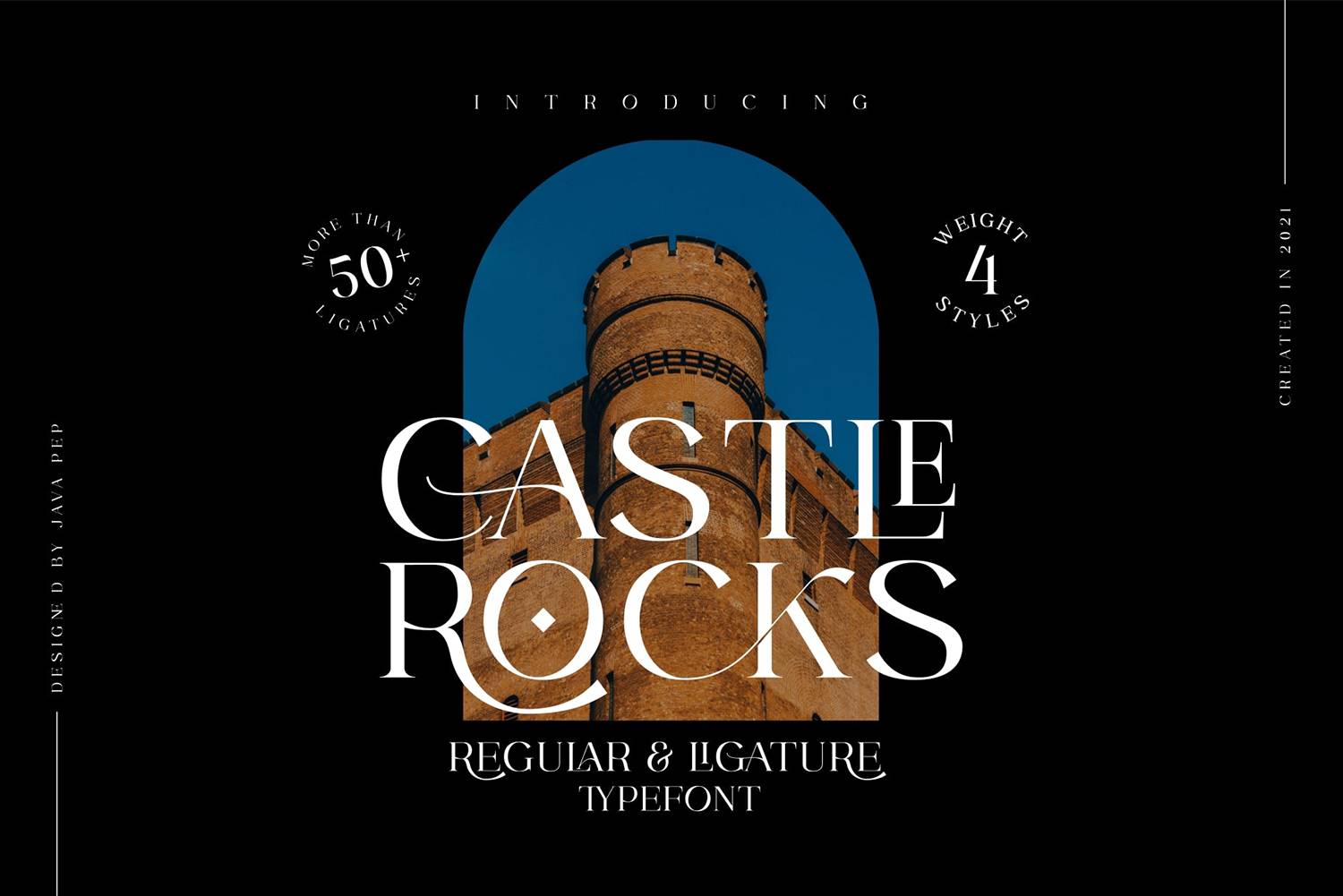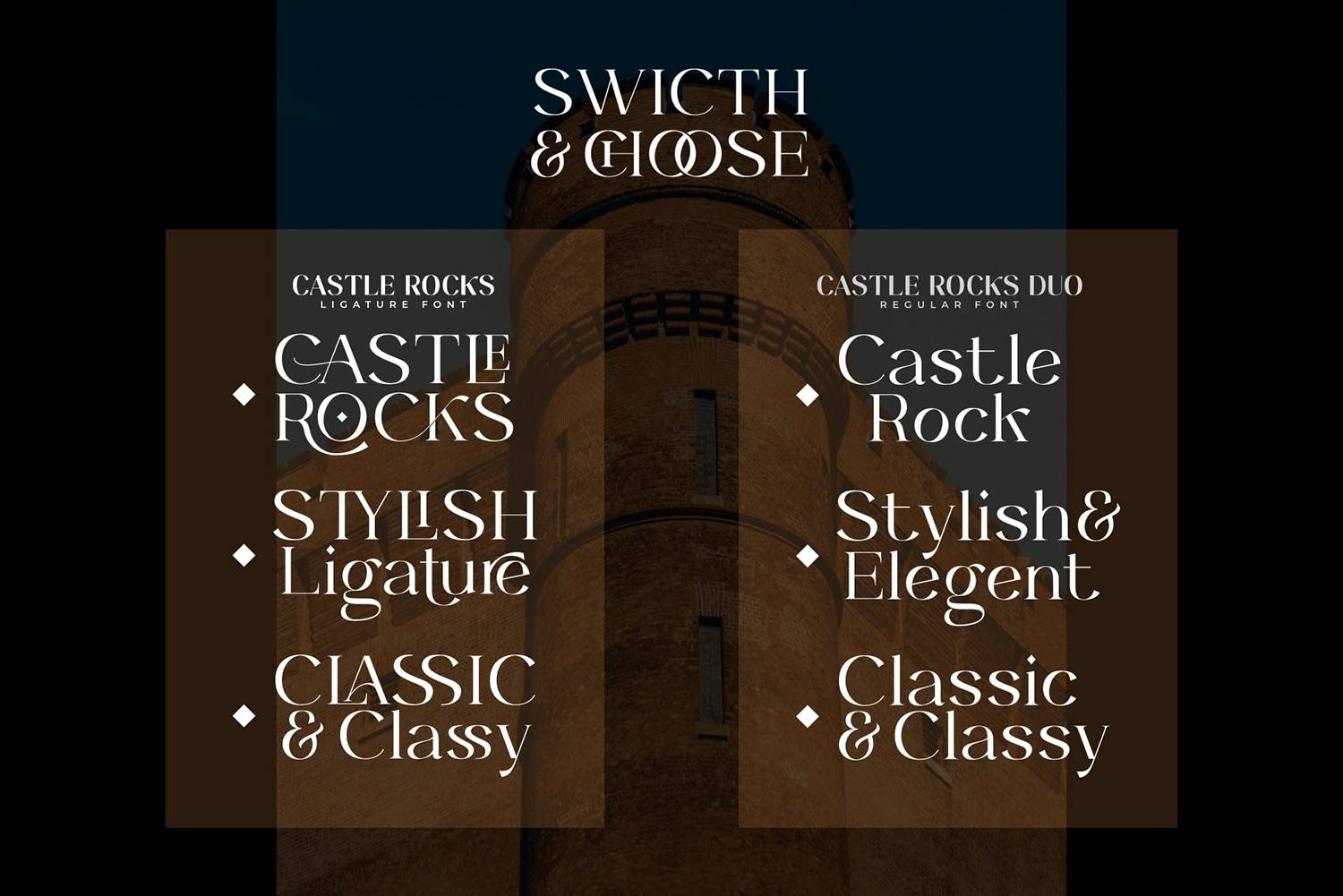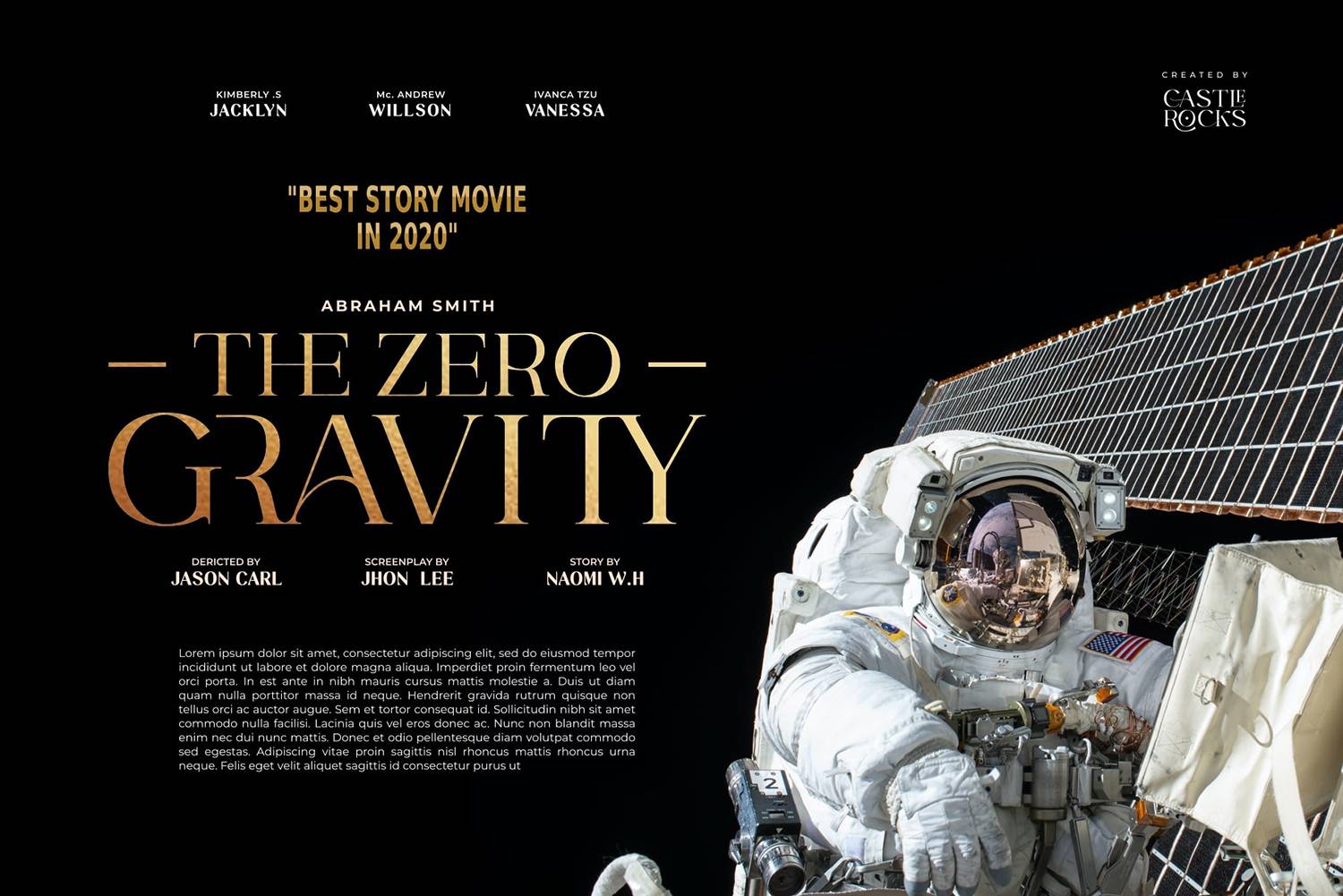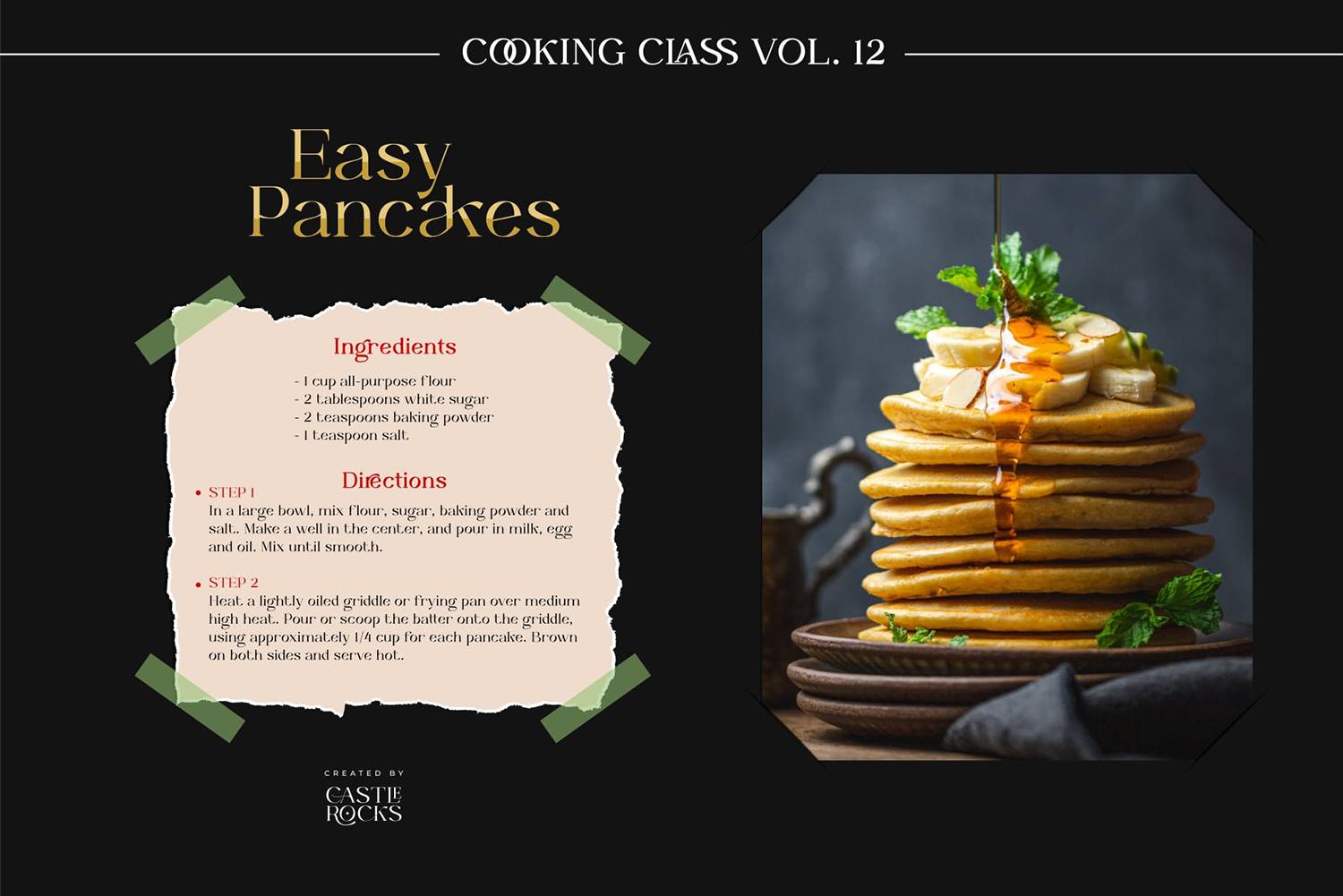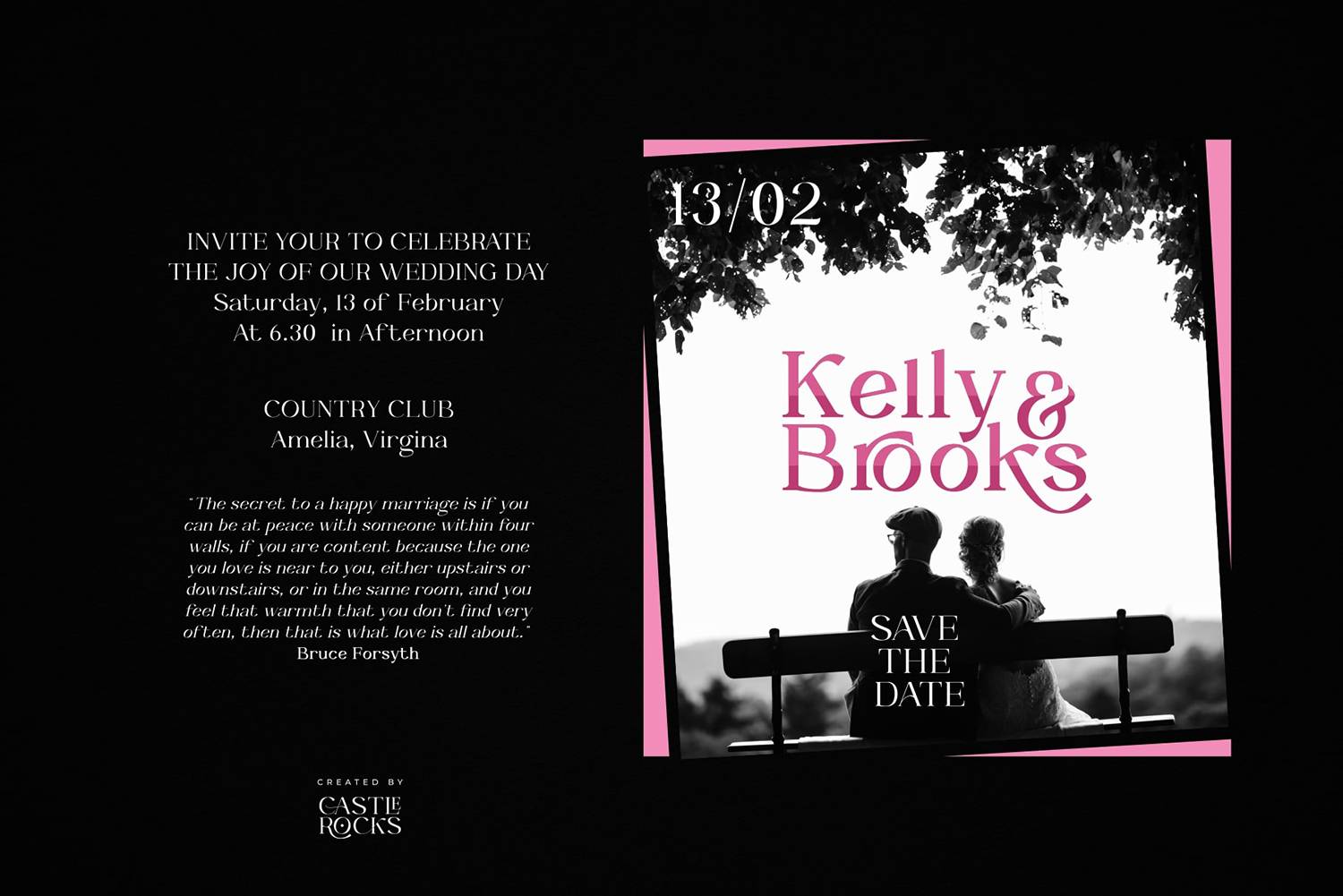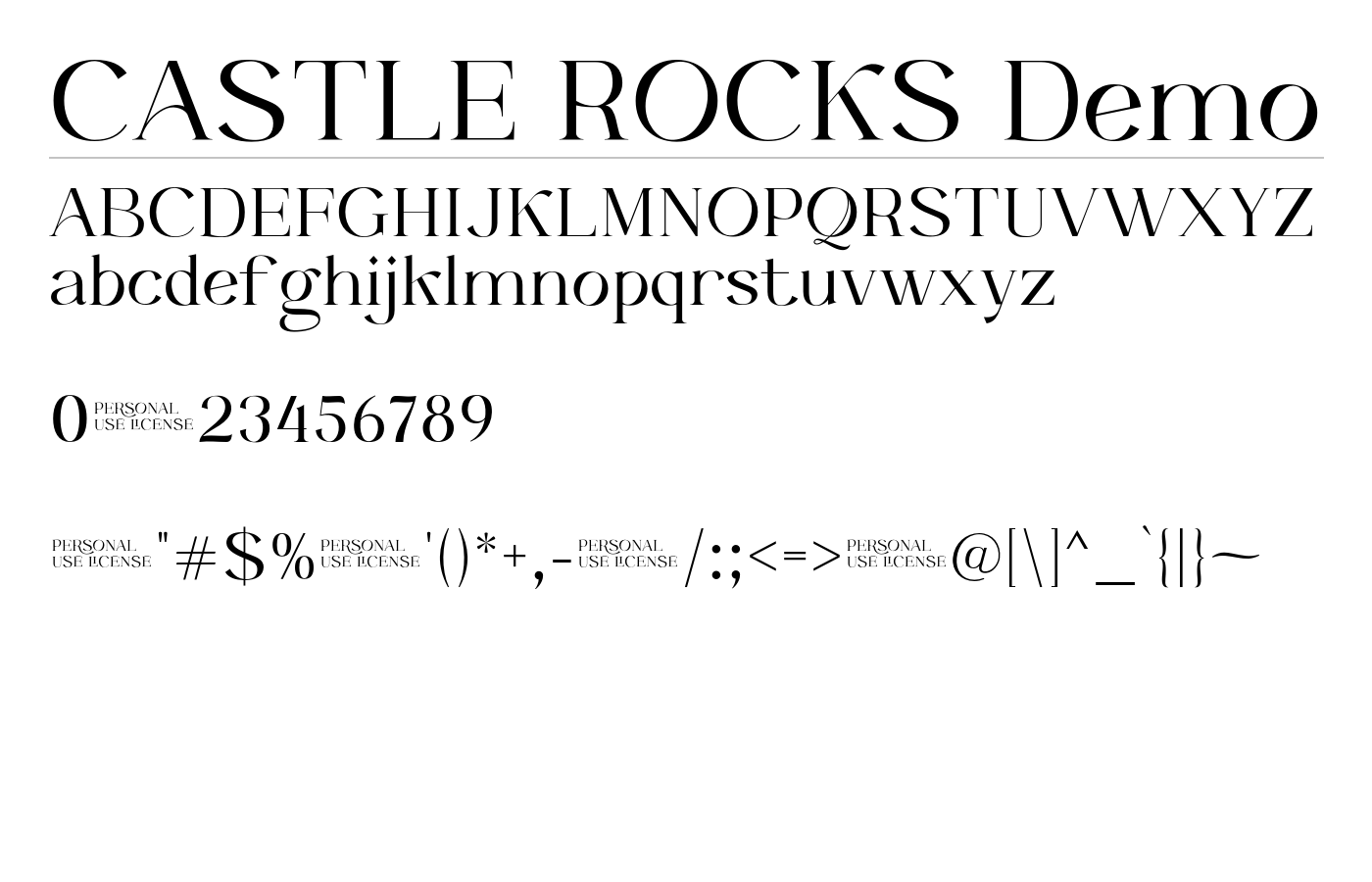
Castle Rocks is an elegant serif font with high contrast between thick and thin strokes, featuring slender, bracketed serifs and a refined, sophisticated structure. Its tall x-height and delicate curves give it a classic yet modern feel, making it ideal for fashion branding, editorial headlines, and luxury packaging. This font conveys a sense of sophistication and timeless style, perfect for projects that require a touch of elegance and refinement.
Castle Rocks Font
About Castle Rocks Font